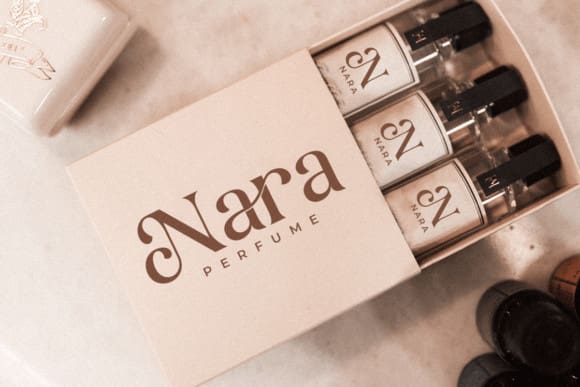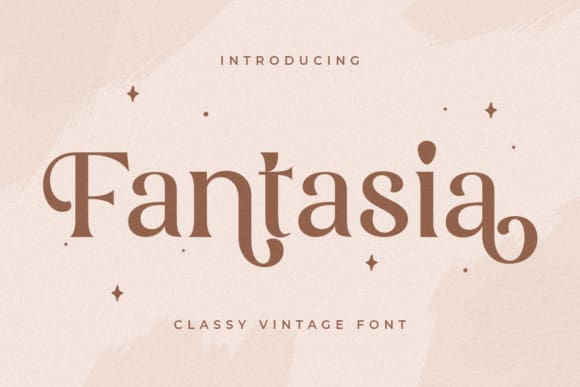
Fantasia Font
Fantasia Font is a stylish serif font that blends classic elegance with modern flair. Its graceful curves and sharp serifs make it perfect for upscale branding, sophisticated print media, and elegant invitations. Elevate your design with Fantasia, where timeless beauty meets contemporary sophistication in every stroke.